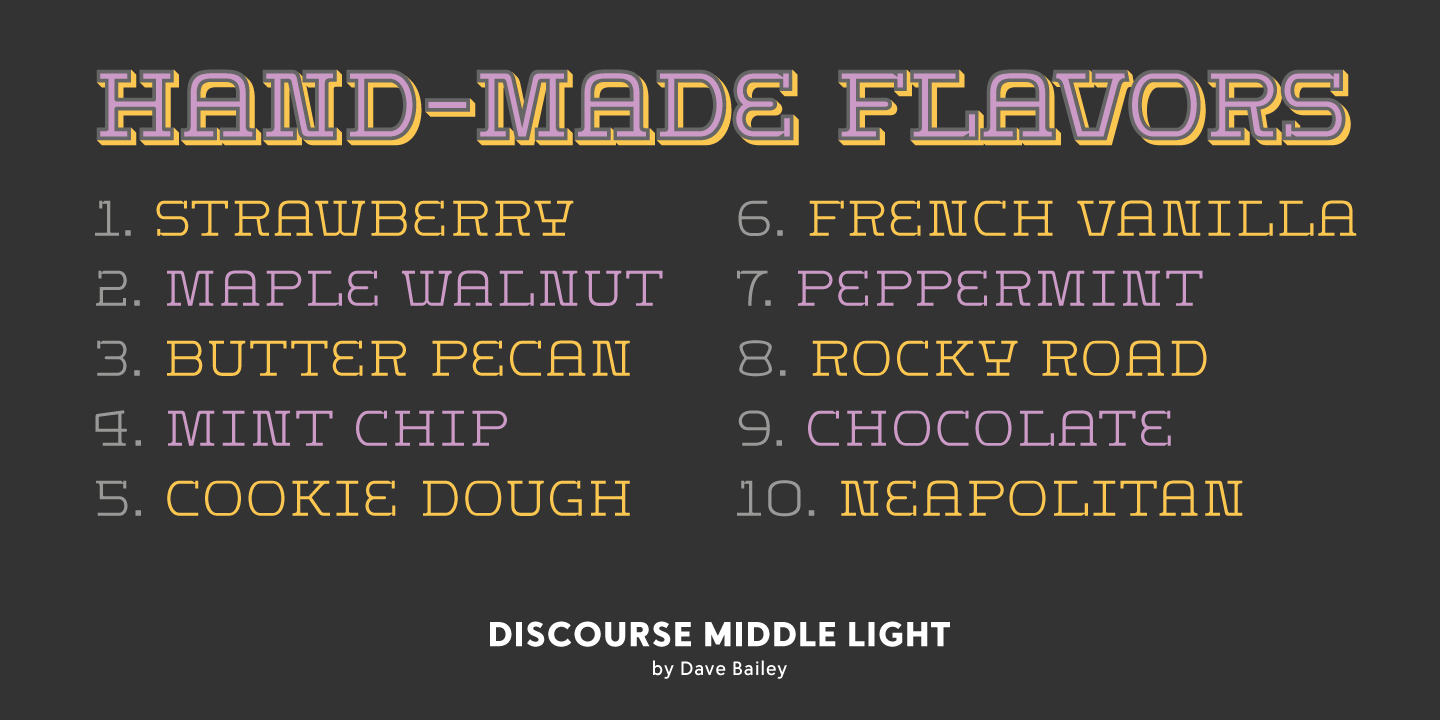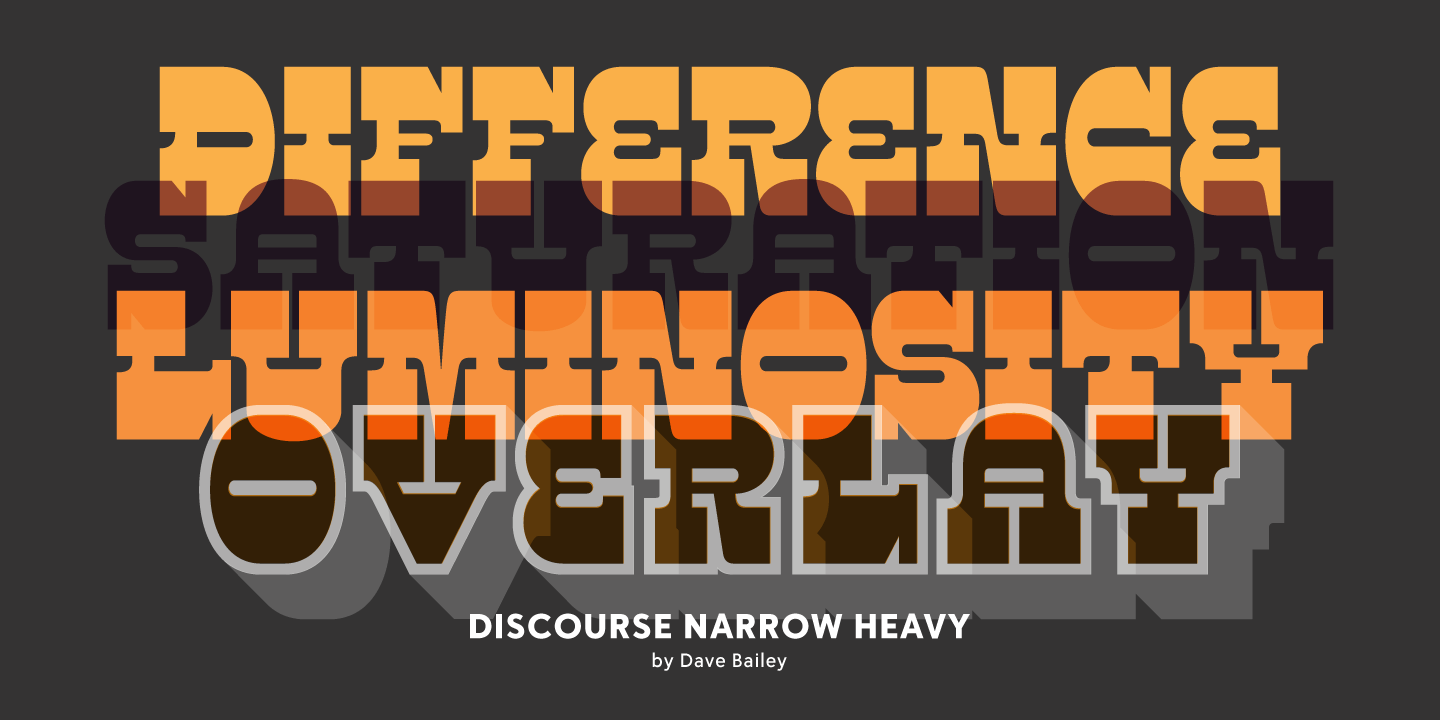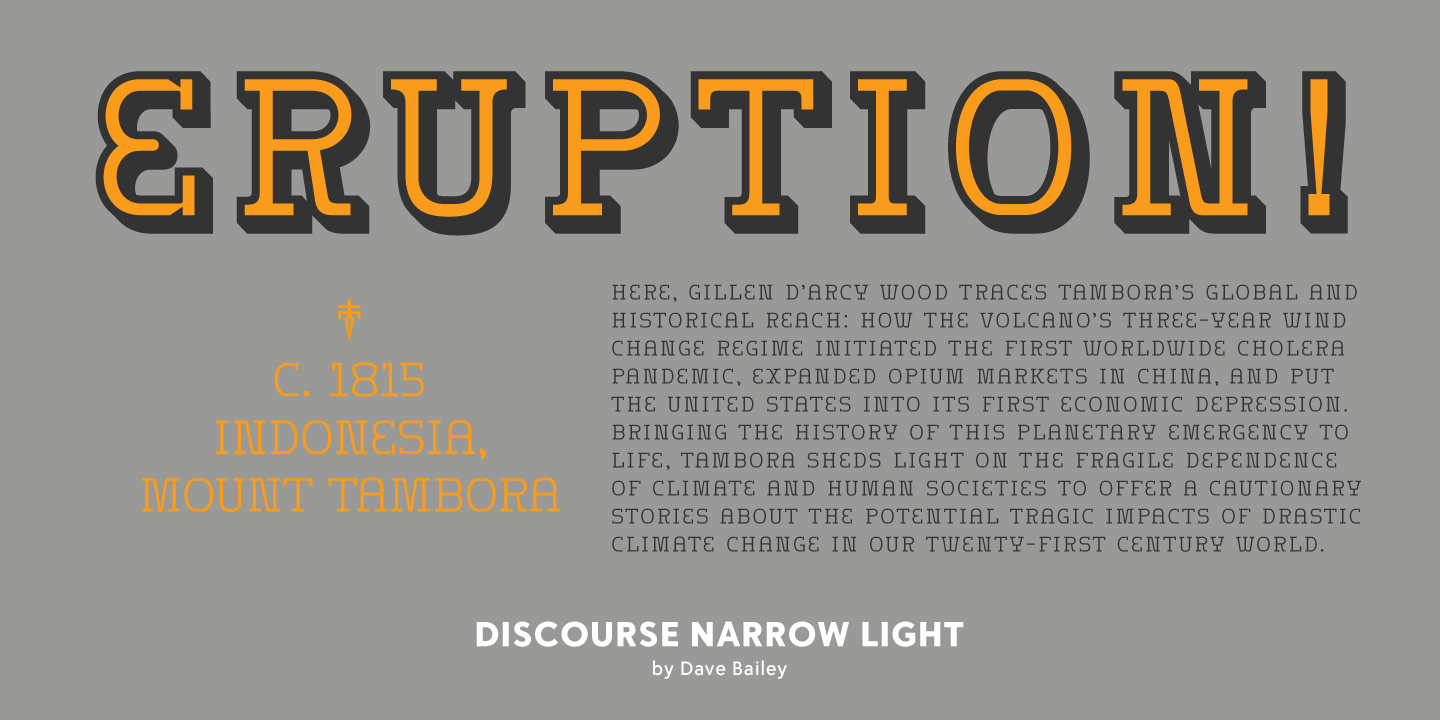
Discourse was first visualized when letterer and designer Dave Bailey heard a preview of the album ?Dust and Buried Bones: A Western Fantasy? by Opiate Eyes. The title alone evokes vivid imagery of gritty western films and the Oregon Trail. Although Discourse…